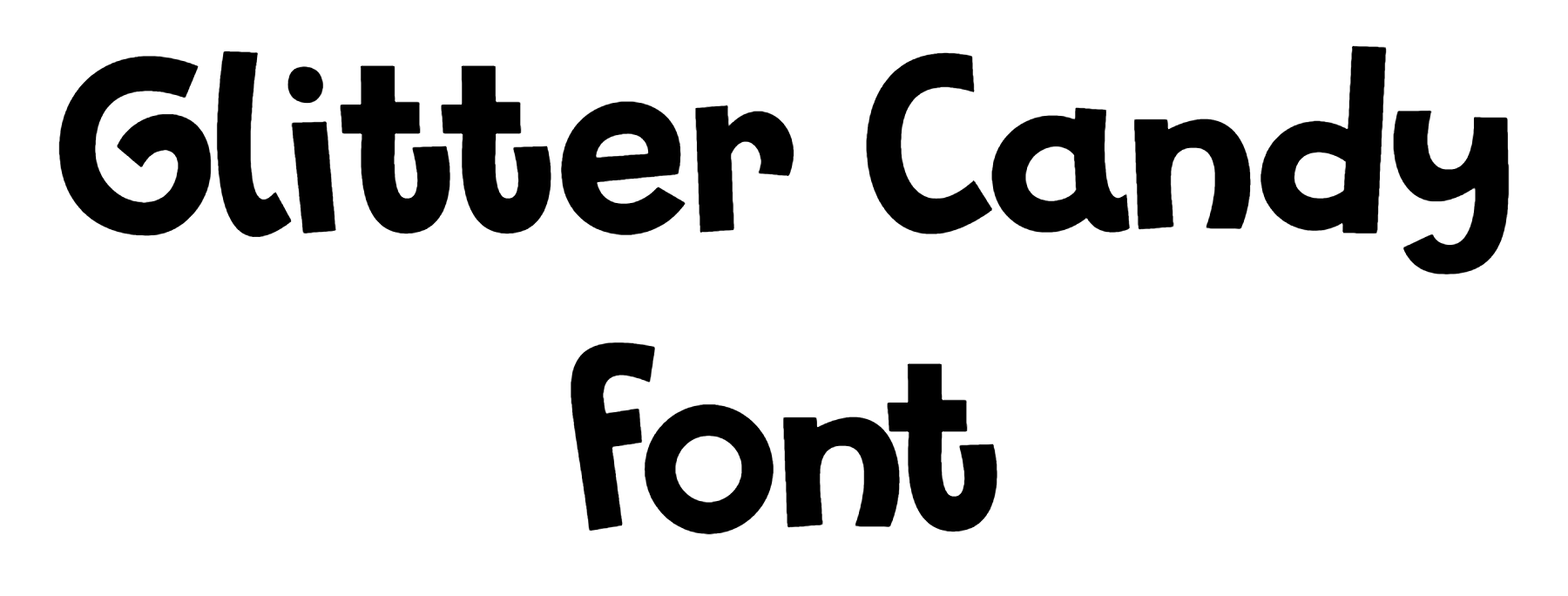
Glitter Candy
Glitter Candy is a cartoon font designed by David Kerkhoff (2018). It has a cheerful, hand-drawn look that makes people smile before they even read the words. You can download it for free and test it with your own words in the preview above.
- Designer: David Kerkhoff
- Characters: A–Z, a–z, 8 digits and basic punctuation
What You Can Type With Glitter Candy
Glitter Candy has the full alphabet in upper and lowercase. Only 8 of the ten numbers are included, so double-check dates and prices before you print anything. Common punctuation such as !, ?, @ and $ is included as well. It also has the accented letters you need for Spanish, French, German, Portuguese and Italian.
Where Glitter Candy Works Best
Think of Glitter Candy for kids' books, birthday invites and fun YouTube thumbnails. Cartoon fonts are great for short, fun lines. If you place it over a busy photo, add a thick outline or a drop shadow so it stays readable.
Yes. Glitter Candy includes the accented letters needed for Spanish, French, German, Portuguese and Italian, so it works for more than just English.
Only 8 of the ten digits. Check dates, prices and phone numbers in the preview above, and use a second font for any missing ones.